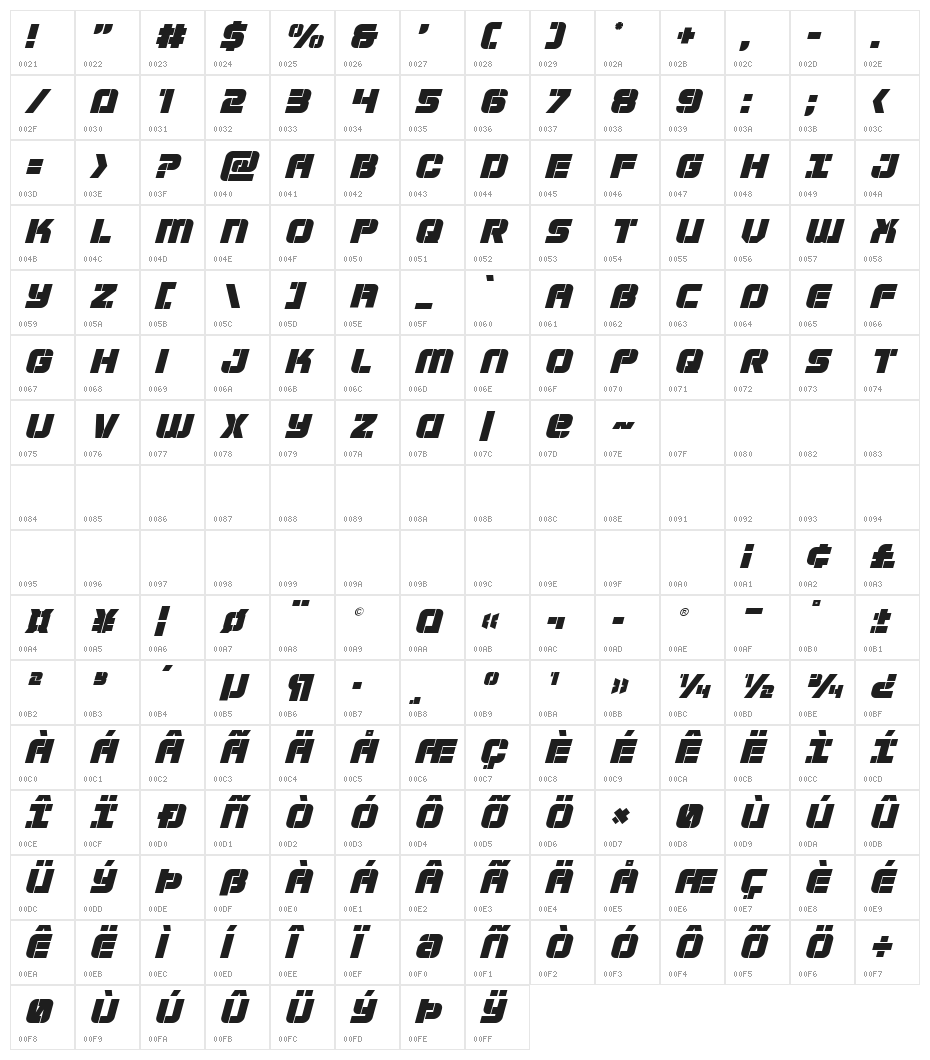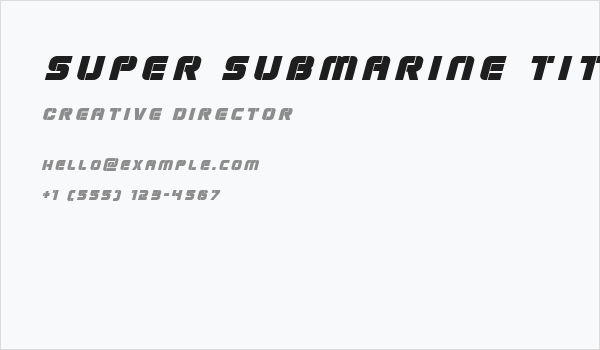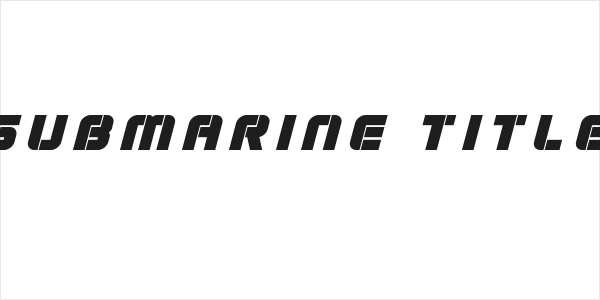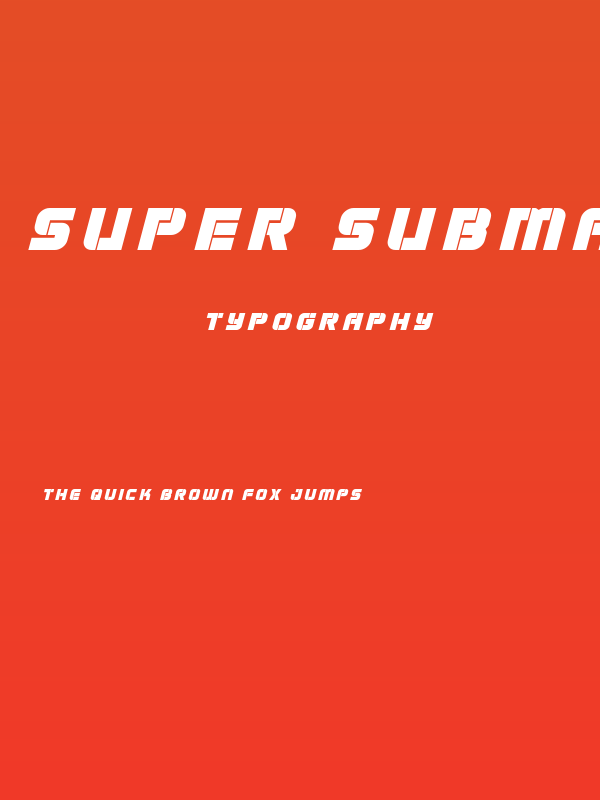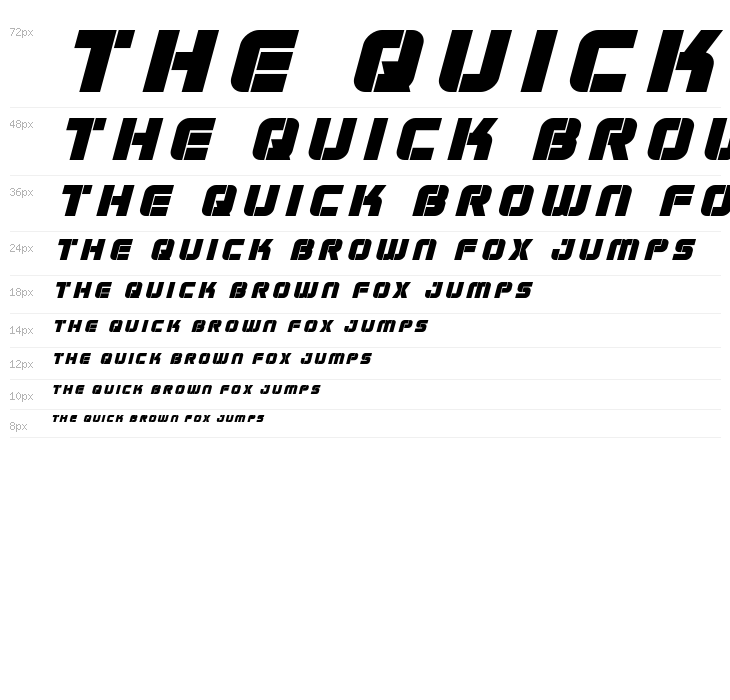
Super Submarine Title Italic Font
Super Submarine Title Italic Description
This font features a bold, italicized style with a futuristic and dynamic appearance. The characters are designed with a distinct slant, giving them a sense of motion and speed. The strokes are thick and consistent, providing a strong visual impact. The geometric shapes and sharp angles contribute to its modern and edgy look. The font maintains uniformity across uppercase, lowercase, and numeric characters, ensuring readability while adding a unique flair. Special characters are also included, matching the overall aesthetic.
| Proposed Projects | Ideal for sci-fi themed projects, video game titles, technology branding, and dynamic posters. |